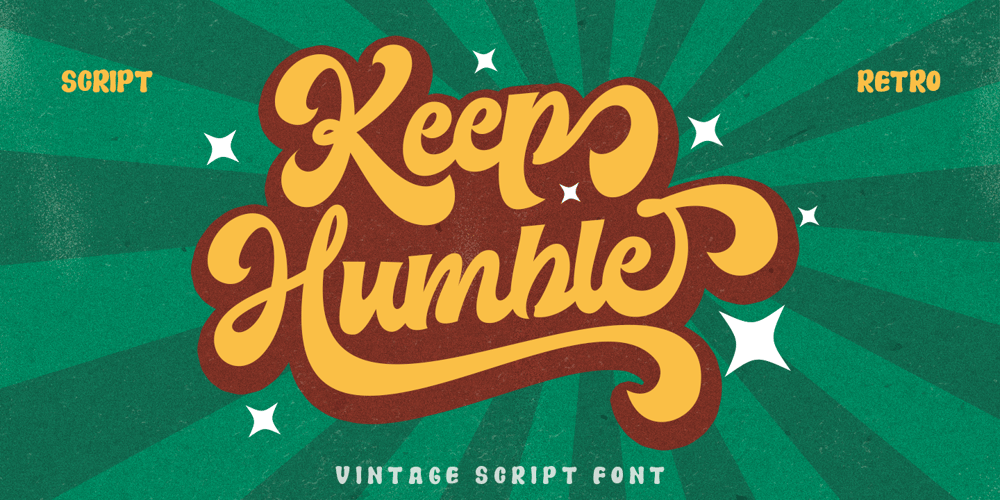
Keep Humble Font Family was designed by Andri Kurniawan and published by Struggle Studio. Keep Humble contains 2 styles and family package options. Keep Humble is a retro styled font with a stunning style that can make the most of your design projects. This font gives a touch of retro style that was famous in the 60-70s.Keep Humble font has an alternative style for Uppercase and Lowercase, Ligature, which can be adapted to your design needs so you don’t waste time creating extrusion effects.Keep Humble also has 25 Swash options, of course this really helps to beautify this font.